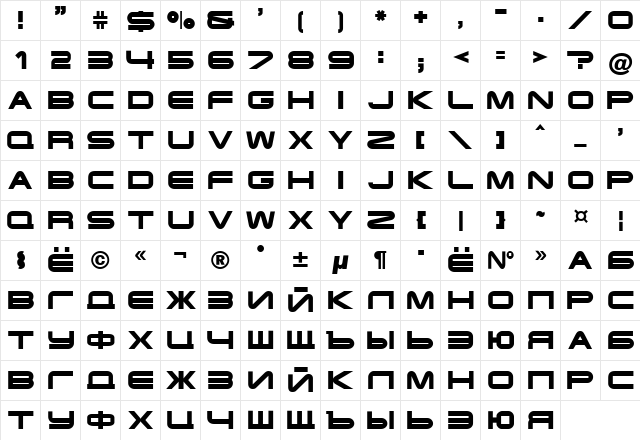
Terminator Cyr Semi-expanded Bold
Design Context for Terminator Cyr Typeface
Terminator Cyr takes a measured approach to typography — its balanced proportions and neutral character make it a reliable workhorse for both digital and print work. The heavy weight commands attention and anchors typographic hierarchies.